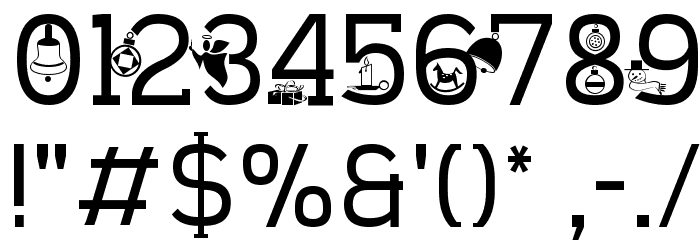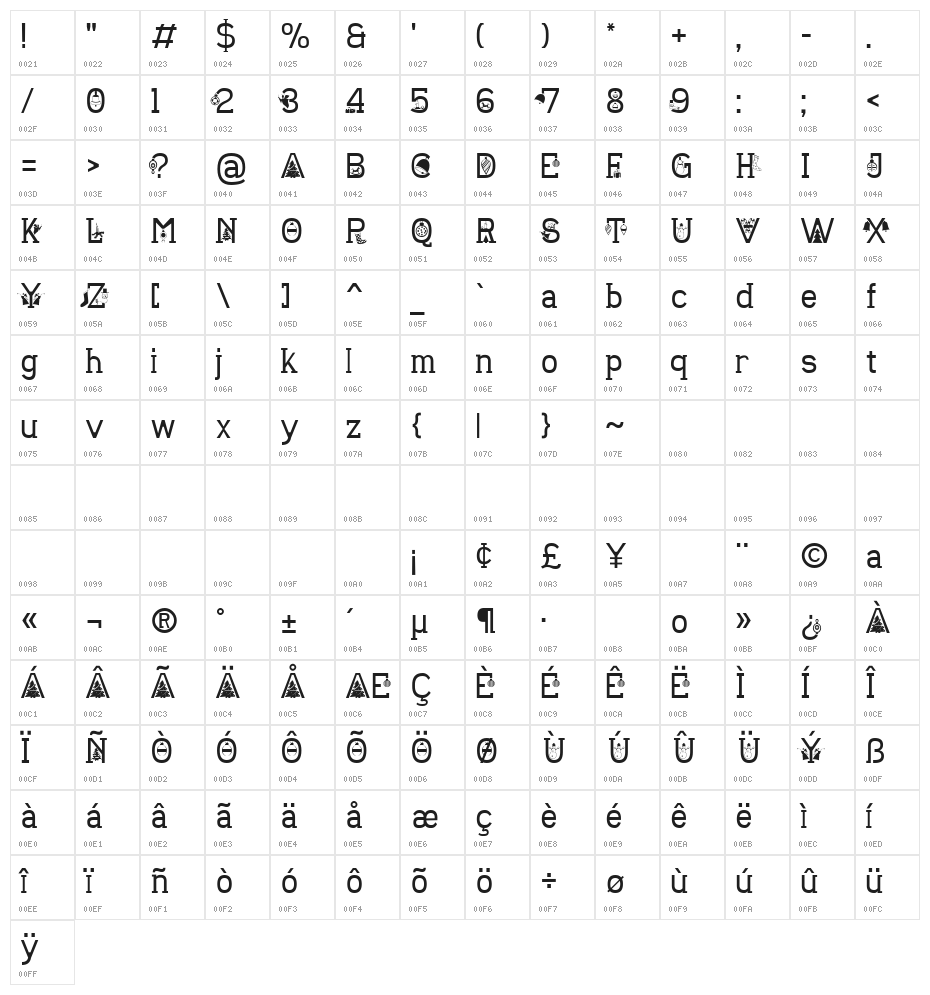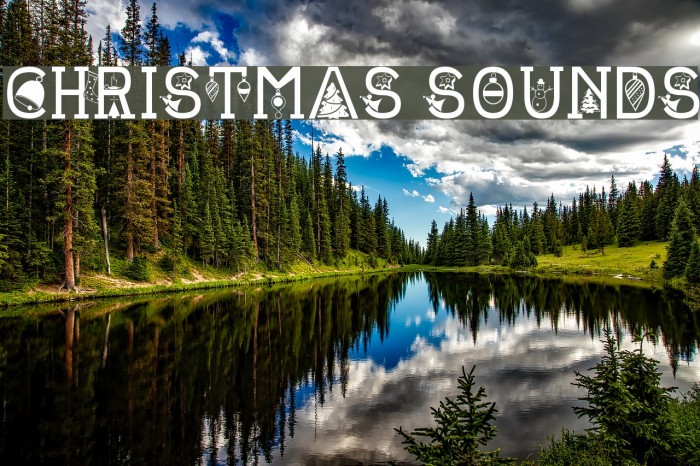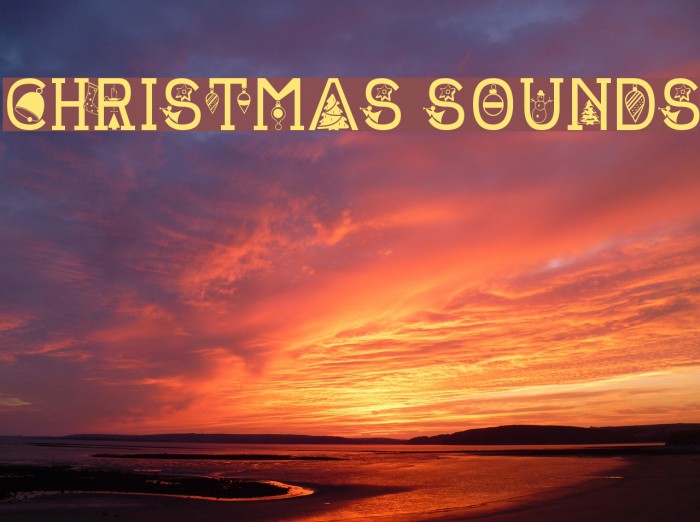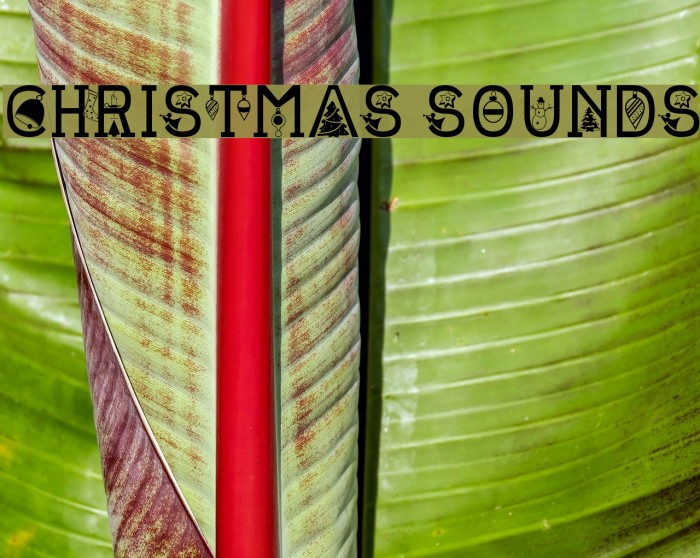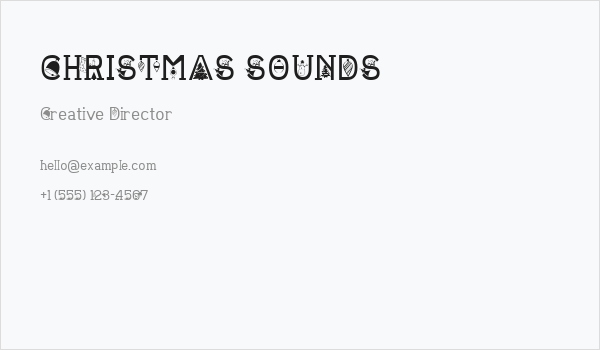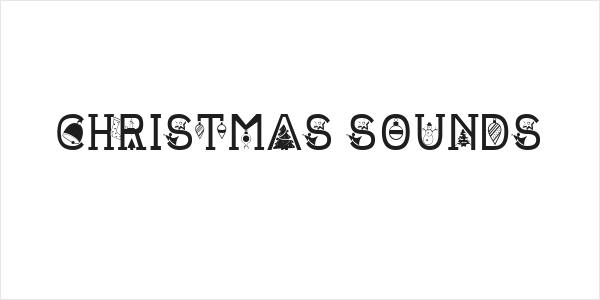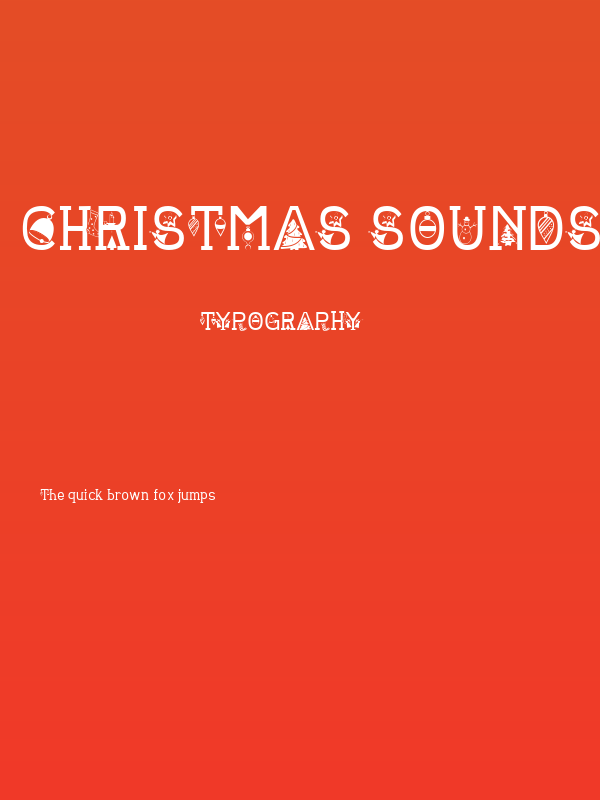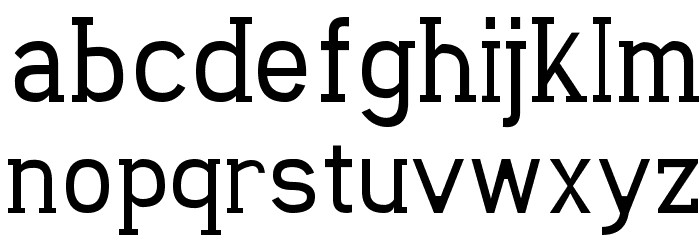
CHRISTMAS SOUNDS Font
CHRISTMAS SOUNDS Description
This decorative font captures the festive spirit of the holiday season with its unique integration of Christmas-themed elements into the letterforms. Each uppercase letter is adorned with delightful holiday motifs such as Christmas trees, snowflakes, ornaments, and snowmen, adding a playful and whimsical touch. The lowercase letters maintain a more traditional serif style, providing a nice contrast to the ornate uppercase. The numbers also feature festive decorations, making them perfect for holiday-themed projects. The special characters are consistent with the overall style, ensuring a cohesive look across all text. This font is ideal for creating eye-catching holiday cards, festive invitations, and seasonal marketing materials.
| Proposed Projects | Holiday cards, festive invitations, seasonal marketing materials, Christmas-themed posters. |